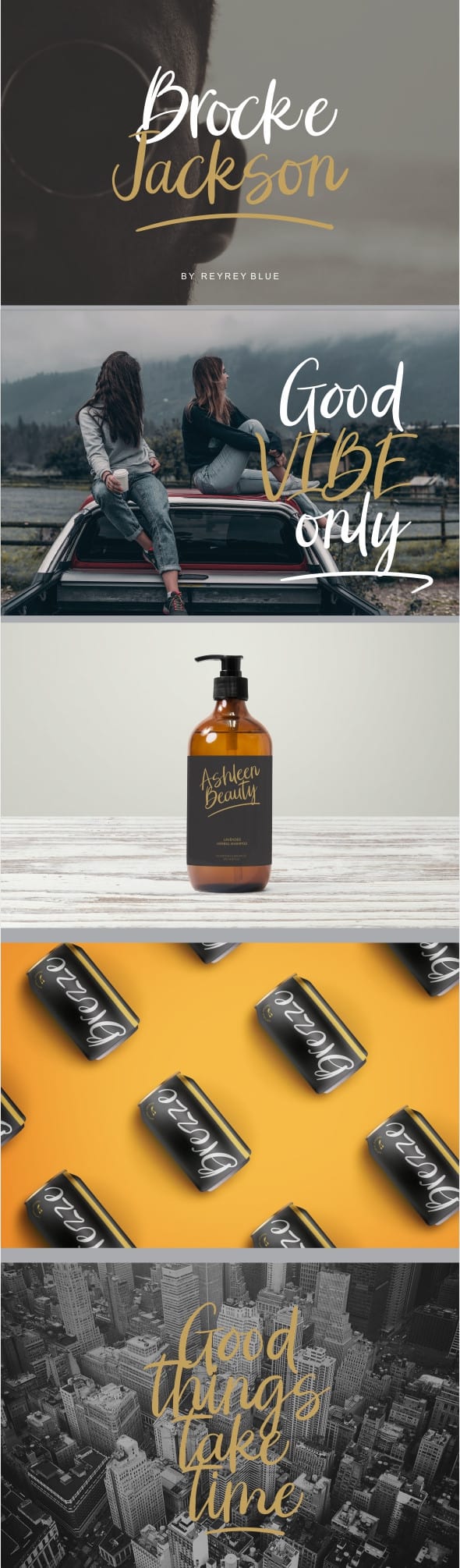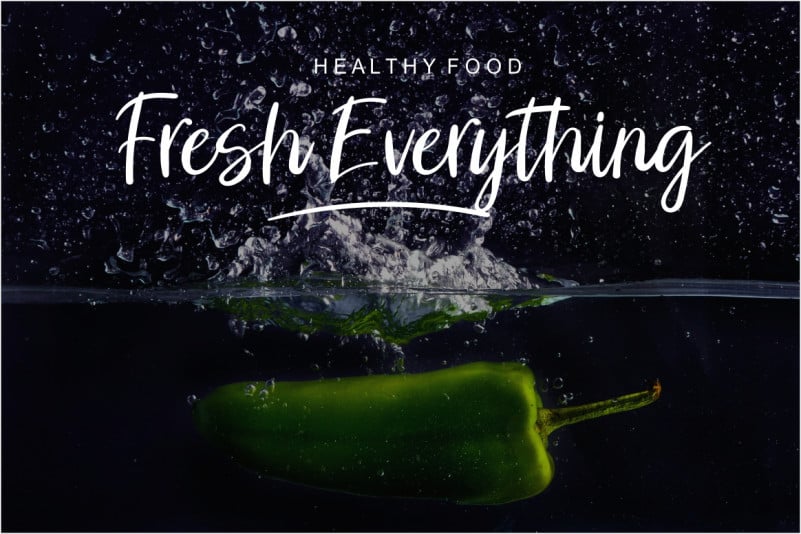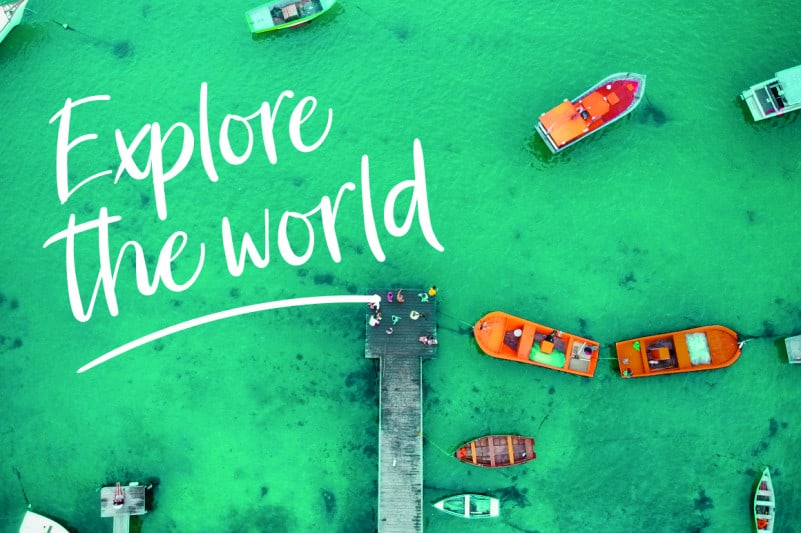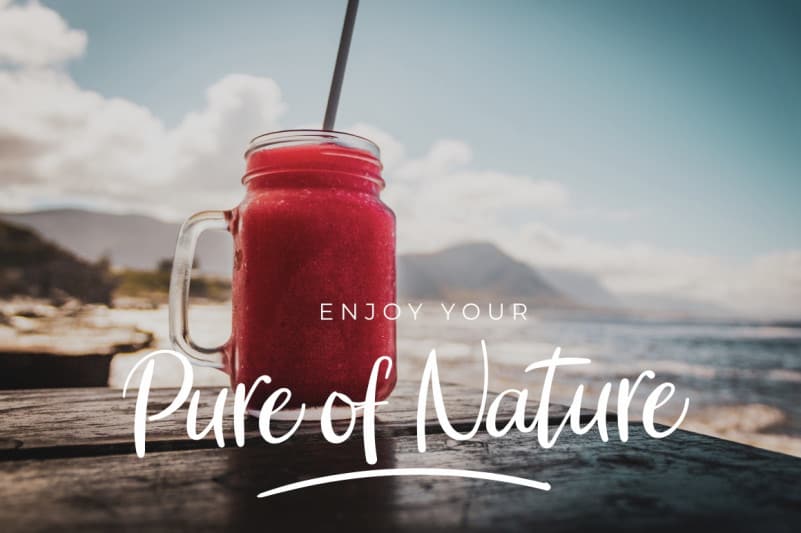
Introduce – Brocke Jackson Script Font. Brocke Jackson is a clean, bold handwritten font.
Brocke Jackson is perfect for branding projects, logo, wedding designs, social media posts, advertisements, product packaging, product designs, label, photography, watermark, invitation, stationery and any projects that need handwriting taste.